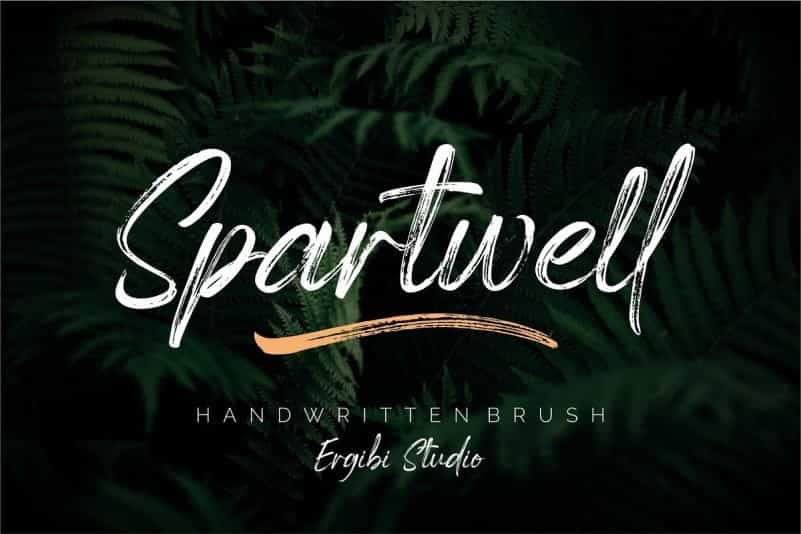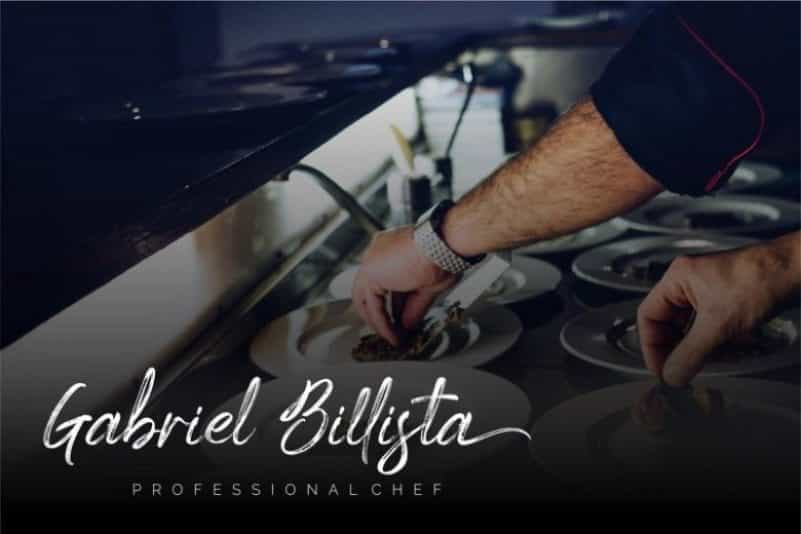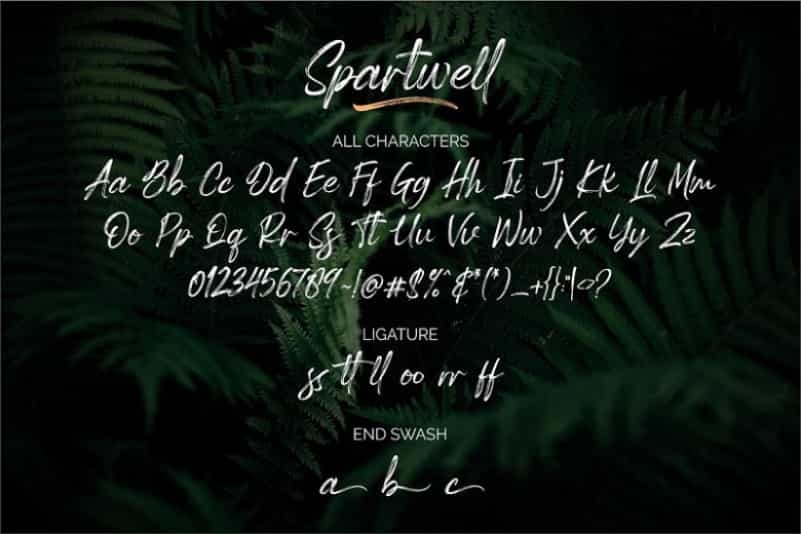
Spartwell is a brush font with the brush effect that looks real. Spartwell is perfect for logos & branding, photography, watermarks, invitations, advertisements, product design and product packaging, stationery, wedding designs, labels, special events or anything that needs handwritten words.